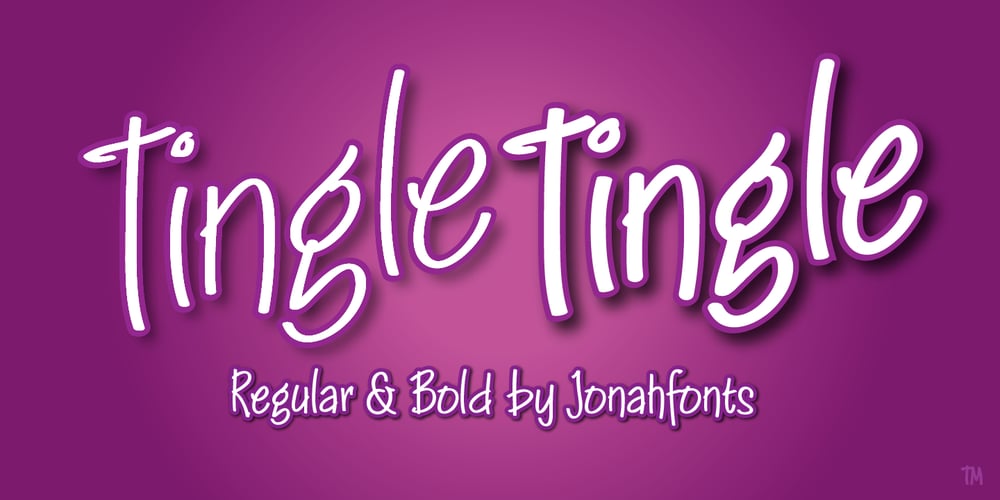
Tingle
Tingle font
Tingle Font Family was designed by published by Jonahfonts. Tingle contains 4 styles and family package options. Tingle has that quick pen look popular with many designs, I have also added the various discretionary ligatures. Usage recommendations: Captions, fliers, packaging, cards, posters, ads, book jackets, manuals, menus, bulletins.